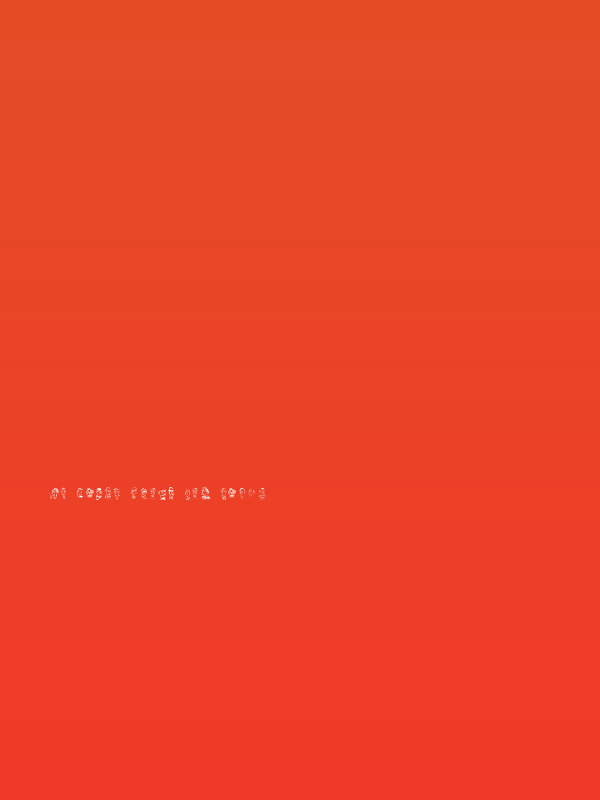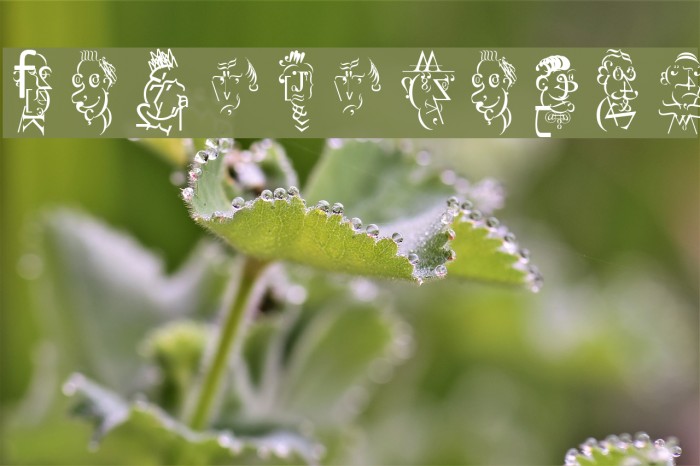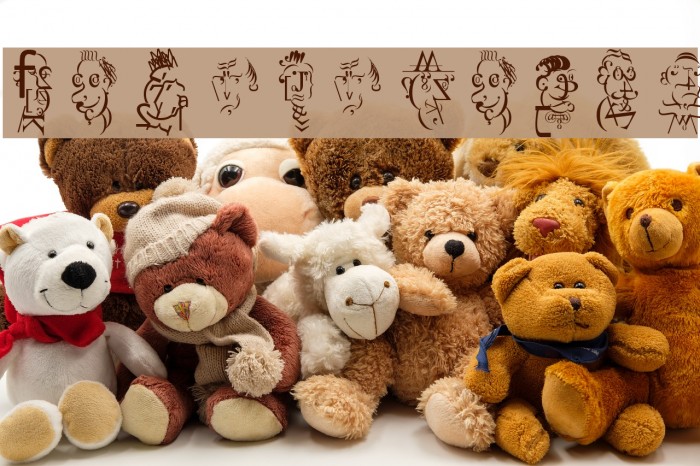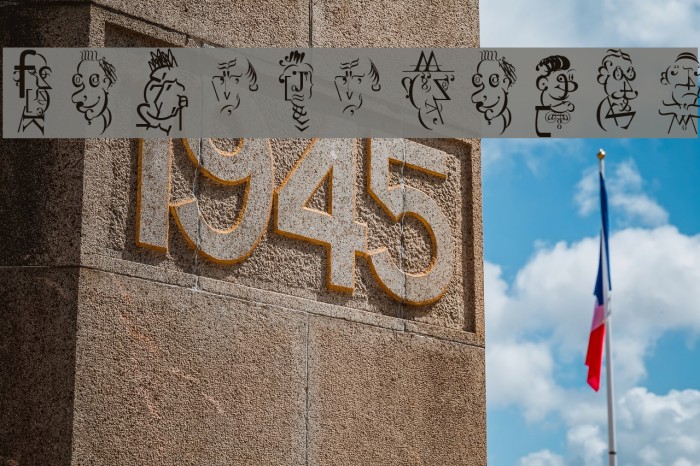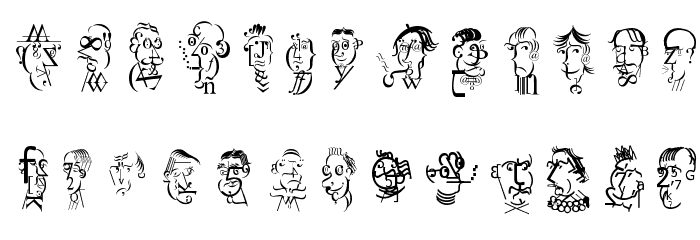
Antypepatics Font
Antypepatics Description
A highly decorative and whimsical typeface where each character is illustrated as a unique caricatured face, blending letterforms with expressive cartoon-like features. The glyphs are playful, irregular, and hand-drawn, prioritizing artistic expression over legibility.
| Overall Style | Decorative, Whimsical, Artistic |
| Use Case | Logos, Posters, Headlines, Artistic projects |
| Proposed Projects | Children’s books, posters, party invitations, comic titles, creative branding, art projects. |